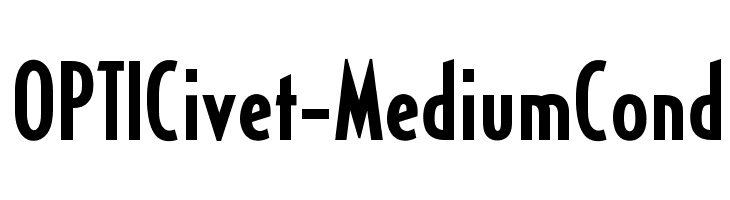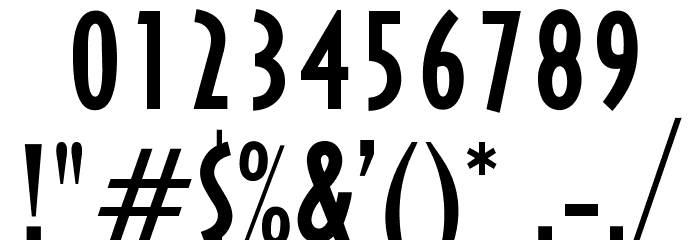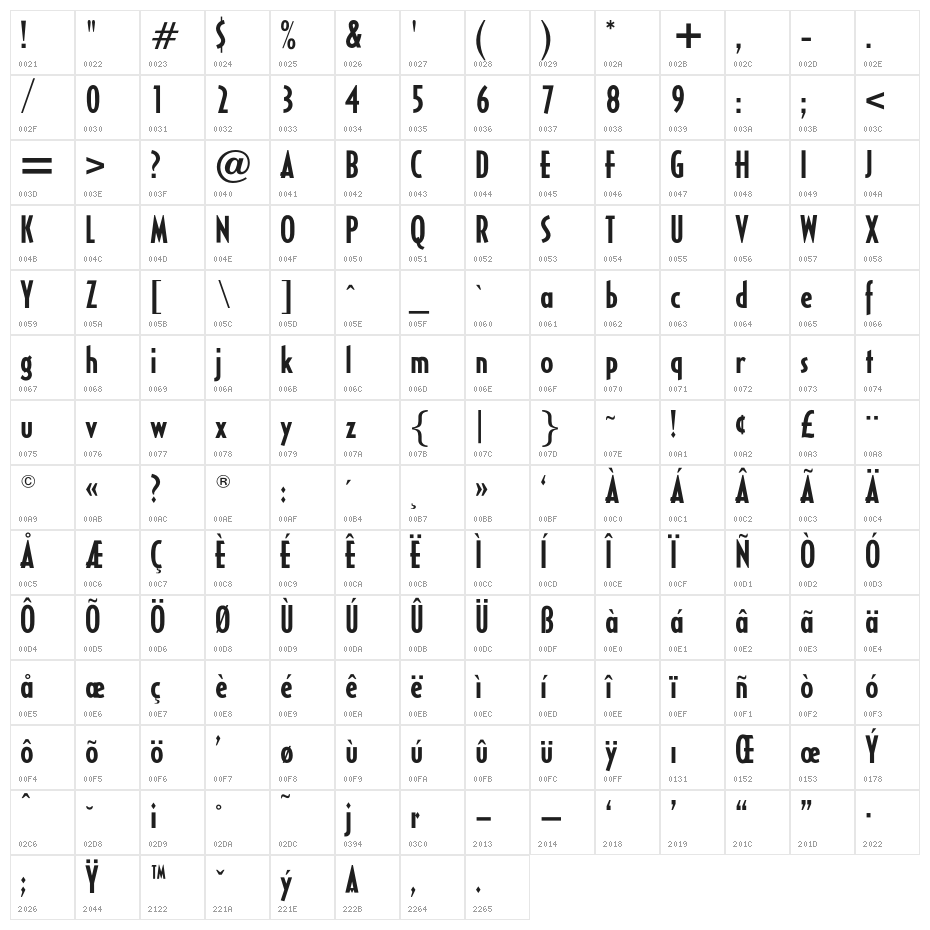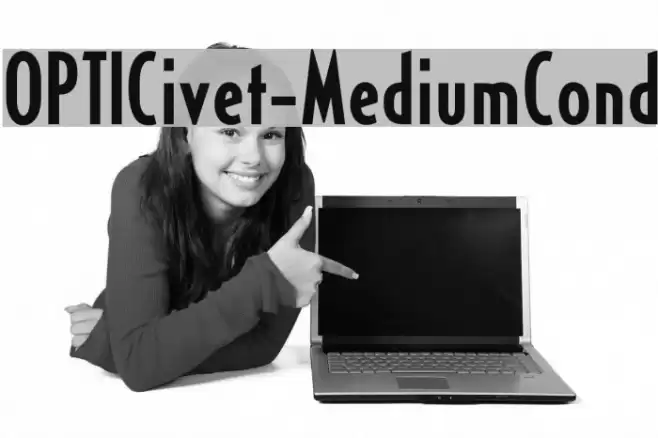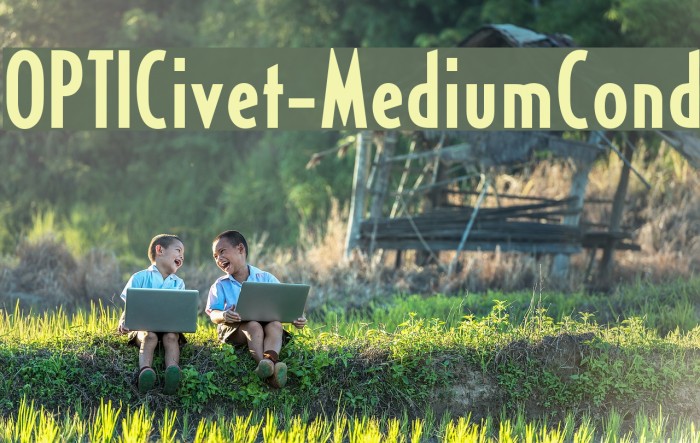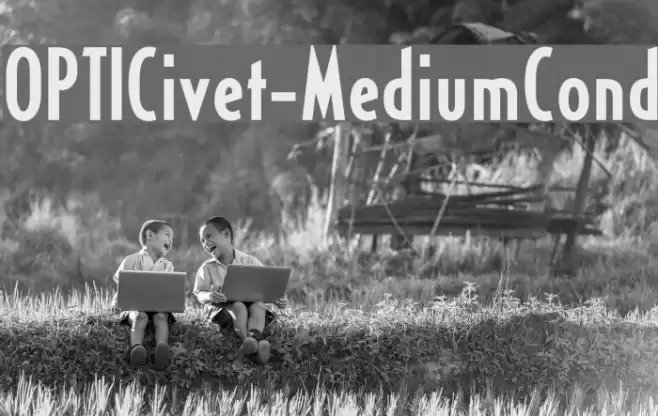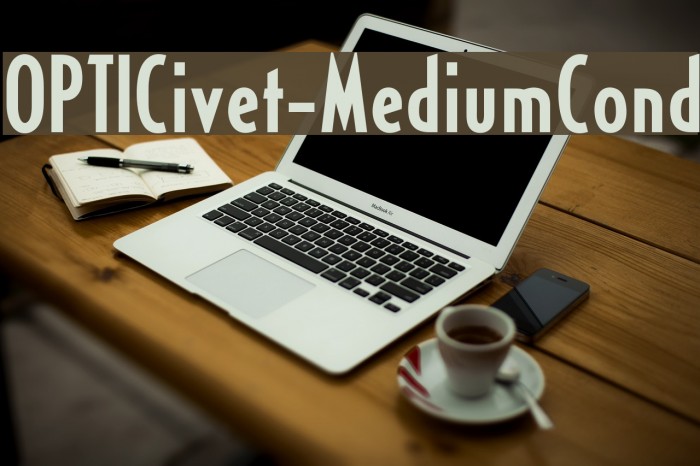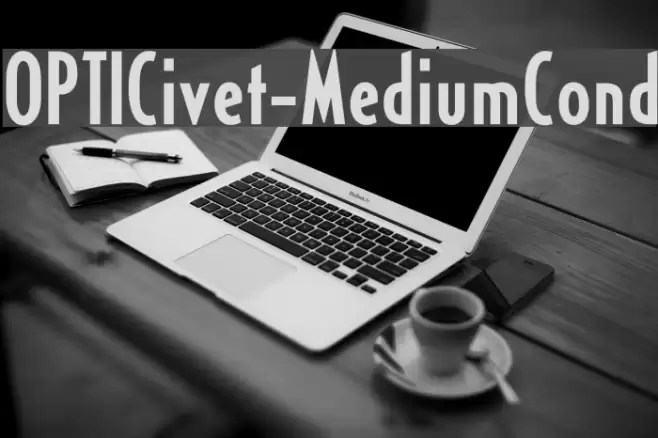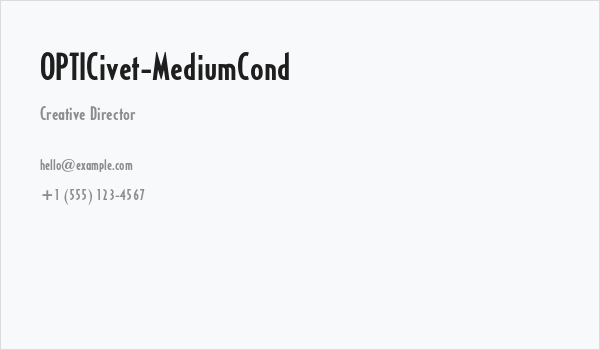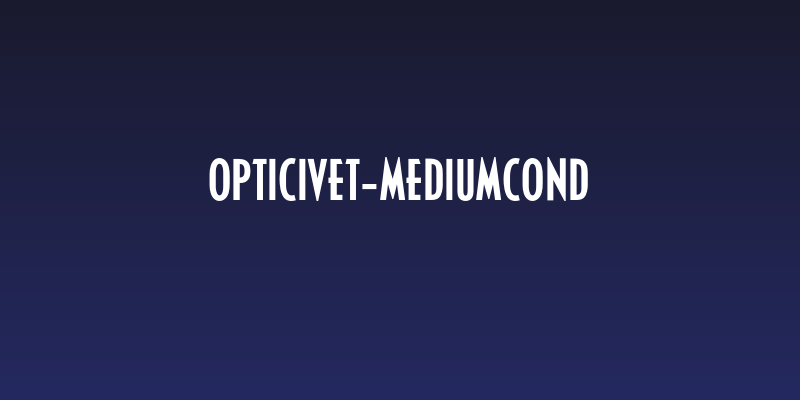
OPTICivet-MediumCond Font
OPTICivet-MediumCond Description
This font features a bold and modern design with a condensed width, making it ideal for impactful headlines and attention-grabbing titles. The characters are tall and narrow, with a slight curvature that adds a touch of elegance. The uppercase letters are particularly striking, with a strong presence that commands attention. The lowercase letters maintain the same condensed style, ensuring consistency across different text sizes. The numerals are clear and easy to read, while the special characters are designed to complement the overall aesthetic. This font's unique style makes it suitable for a variety of creative projects.
| Proposed Projects | Ideal for branding, advertising, poster design, and editorial headlines. |